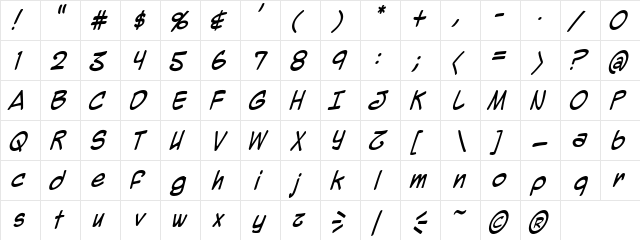
Mighty Zeo 2.0 Italic
Design Context for Mighty Zeo 2.0 Typeface
Mighty Zeo 2.0 takes a measured approach to typography — its balanced proportions and neutral character make it a reliable workhorse for both digital and print work. The slanted form adds forward momentum and visual energy.
Pro Tip: Use Mighty Zeo 2.0 for emphasis, pull quotes, and subheadings where its slanted energy can add rhythm to the layout.